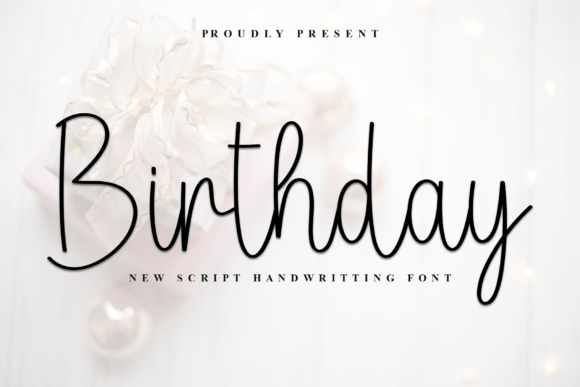
The Birth of a Perfect Font: A Designer’s Love Affair with Birthday Font
I still remember the design project that led me to fall in love with the Birthday font. I was working on a client’s wedding invitation suite, and I was struggling to find the perfect handwritten font that would capture the elegance and playfulness of the occasion. The client wanted something that looked like it was drawn with a marker, with a relaxed and sporty feel. After hours of scouring font libraries and marketplaces, I stumbled upon Birthday font, and it was like a match made in heaven.
An Honest Review: What I Love (and Love to Hate) About Birthday Font
• Unique and eye-catching: Birthday font has a distinct, hand-drawn feel that sets it apart from more traditional fonts.
• Versatile: It’s perfect for a wide range of design projects, from branding and logos to wedding supplies, greeting cards, and marketing promotions.
• Elegant yet casual: Birthday font strikes the perfect balance between sophistication and playfulness, making it ideal for designs that need to look luxurious and elegant but still approachable.
• Easy to read: Despite its handwritten nature, Birthday font is surprisingly legible, even at smaller sizes.
• ⚠️ Limited use in very formal designs: While Birthday font is versatile, it may not be the best choice for very formal or traditional designs, such as corporate reports or academic papers.
• ⚠️ Some glyphs can be finicky: Occasionally, certain glyphs or special characters may not render perfectly, requiring some manual tweaking.
The Story Behind Birthday Font
Birthday font was designed by a talented type designer who wanted to create a font that captured the spirit of celebration and joy. The designer drew inspiration from traditional marker-drawn lettering and infused it with a modern, playful twist.
Font Name Birthday Font